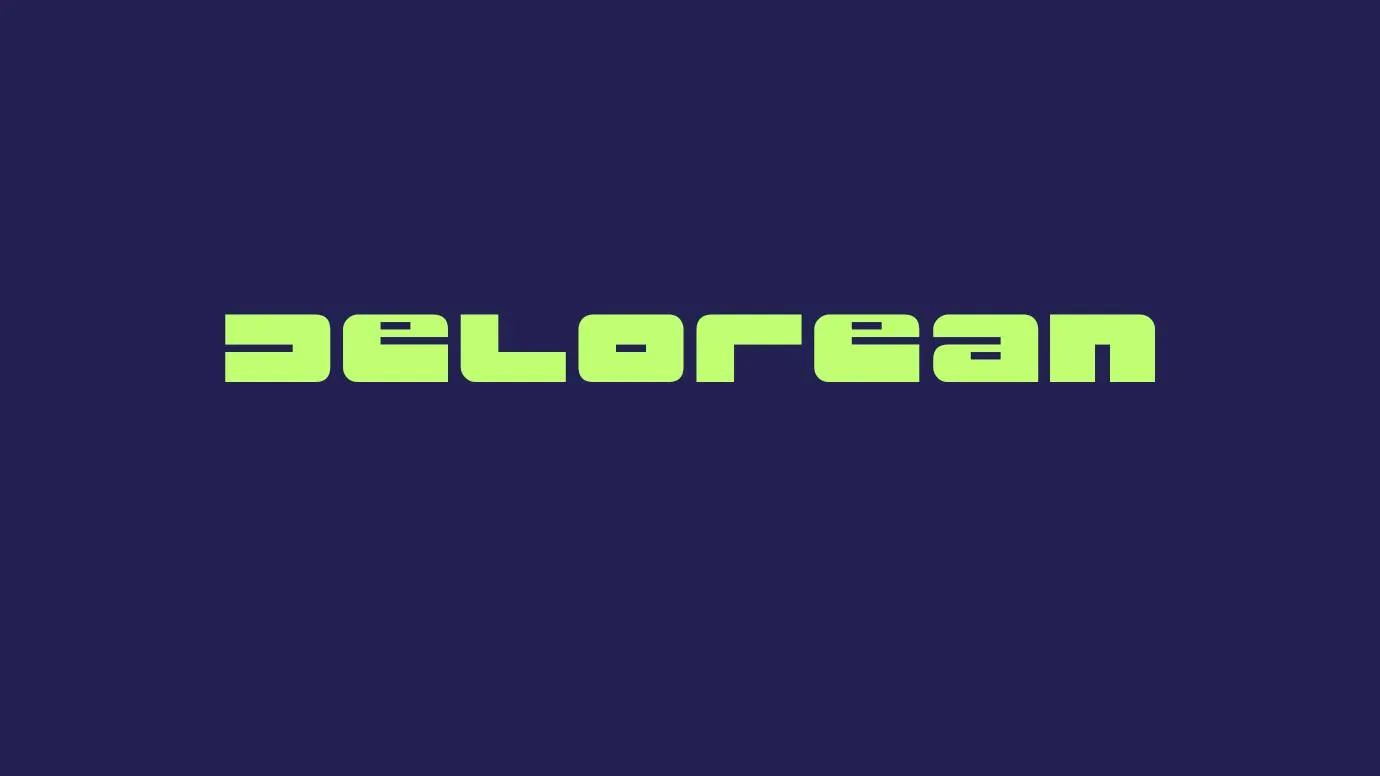
Delorean Font Family
Delorean Font Family is a classic typeface that has a lot of features and lies in the category of techno and display fonts. Ray Larabie a very famous font designers work on this logo typeface and after this, it was released by Typodermic Fonts in the year 1999.
Delorean Font
NameDelorean Font
DesignerRay Larabie
Foundry Typodermic Fonts
Date Released1999